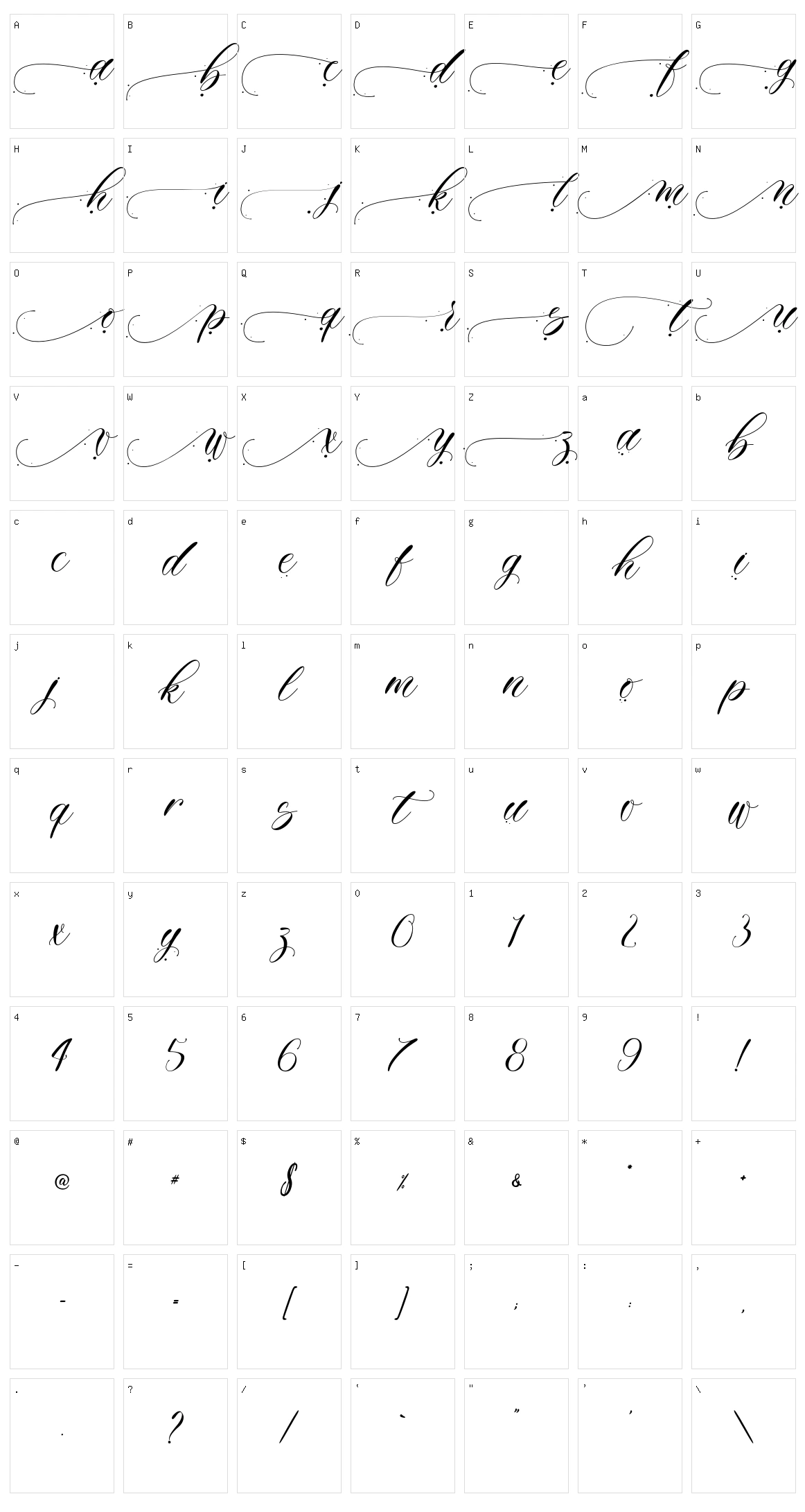
The free font Rathouly is carefully designed by Typhoon Type? - Suthi Srisopha, showcasing a thoughtful balance of creativity and usability and falls under the Script font style. When you download the ZIP file, it contains only 126.43 KB of font files, making it lightweight and quick to download. Please review the license details below to understand permitted usage and distribution rights. If license information is not available, we recommend using this font for personal projects only or contacting the author directly for commercial usage permissions.
Typhoon Type - Suthi SrisophaÂ